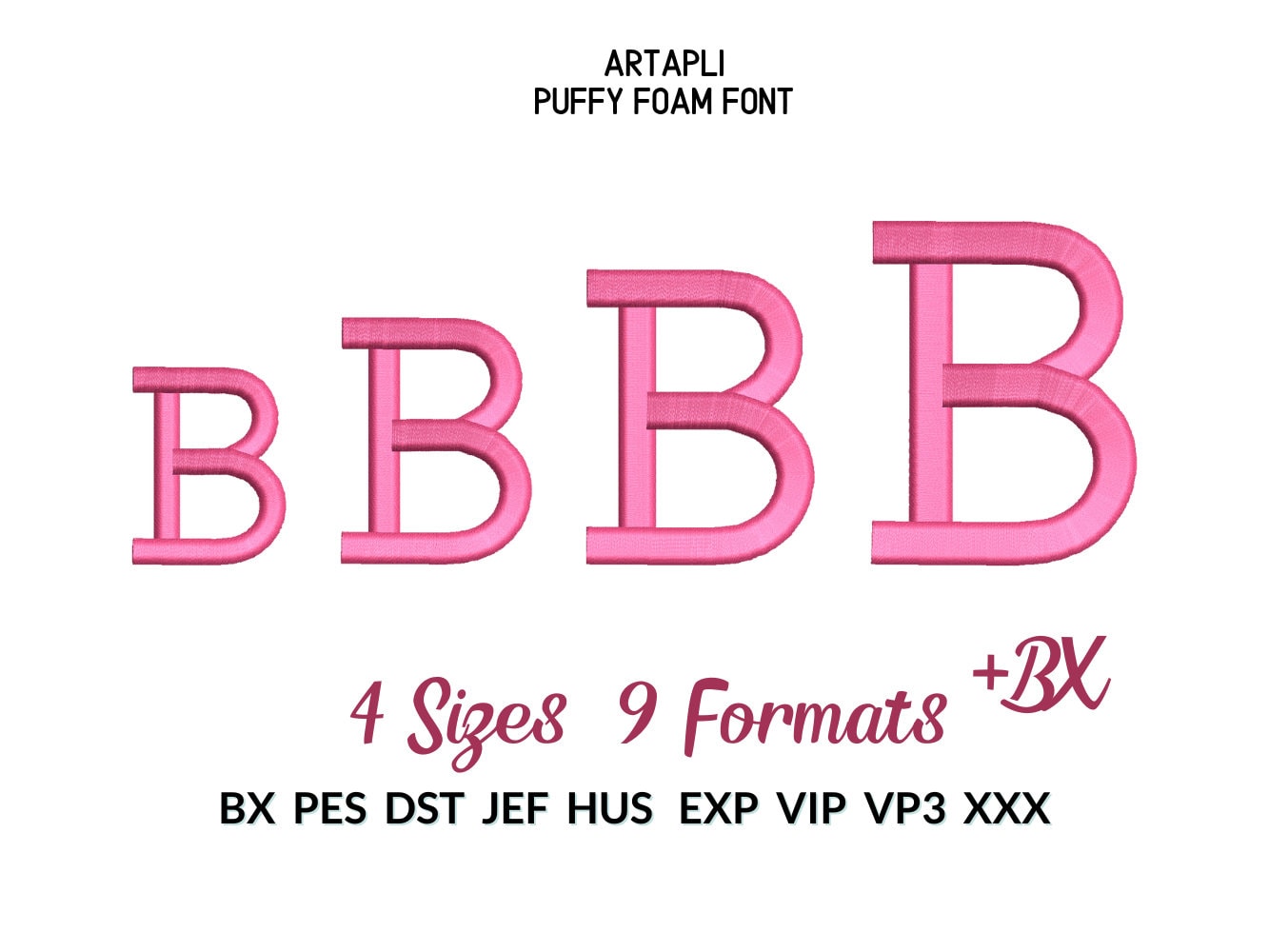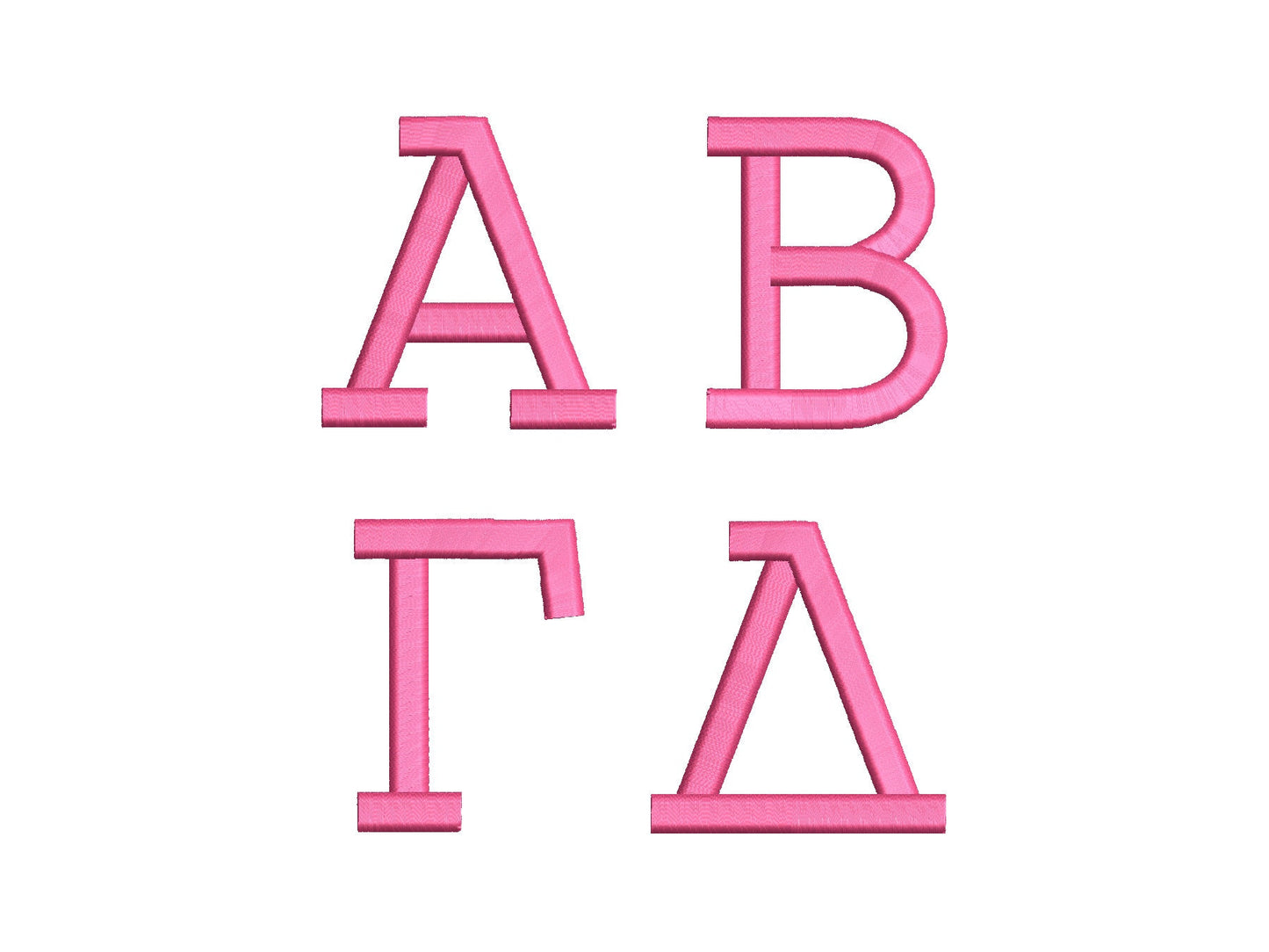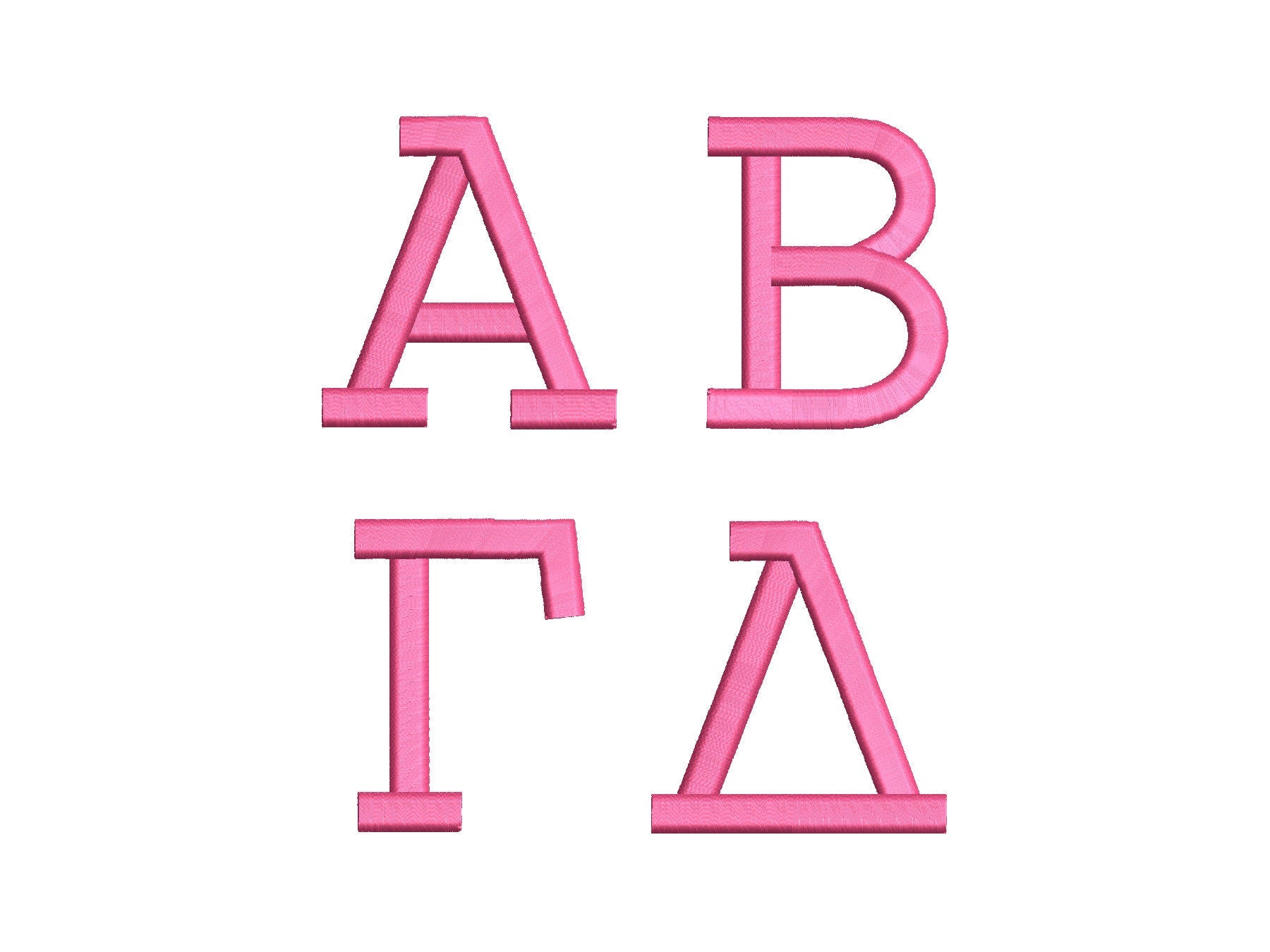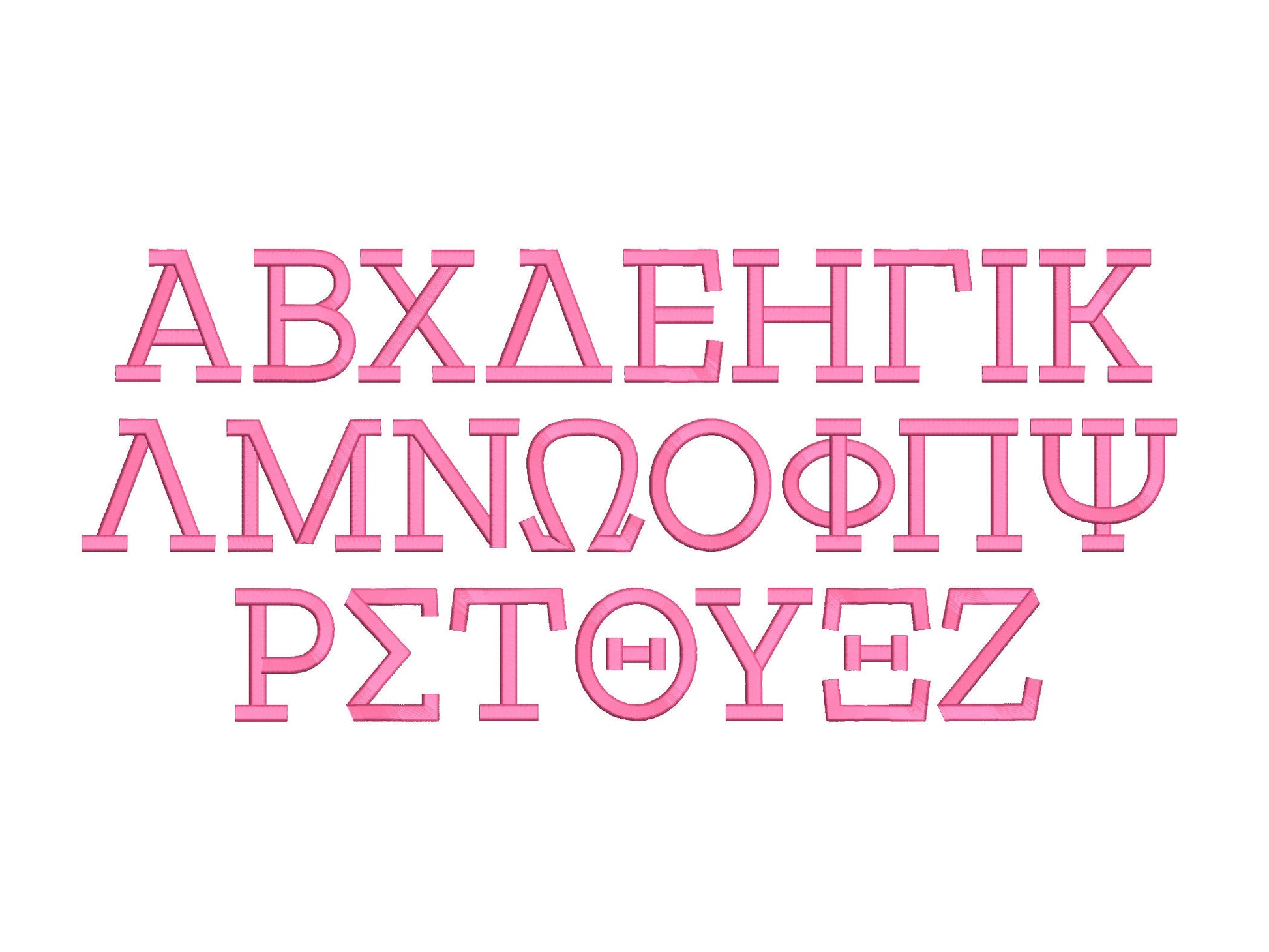
Puffy Puff Foam Sororities Greek Font
Block Greek letters with a raised 3D look made with puff foam. Great for sorority and fraternity caps, shirts and jackets.
All 24 Greek letters in four sizes: 1.6, 2, 2.4 and 2.8 inches. Stitched over puff foam for a raised finish.
• 24 Greek letters, puff foam
• 4 sizes: 1.6, 2, 2.4 and 2.8 in